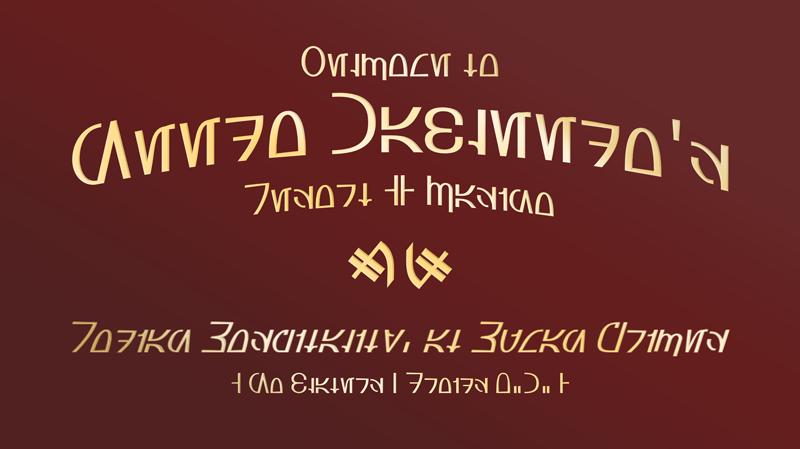
Aurebesh_Rodian-Oblique.otfAurebesh_Rodian-Outline.otfAurebesh_Rodian-OblqOutline.otfNote of the authorAurebesh_Rodian, is a curvier, friendlier Aurebesh font.